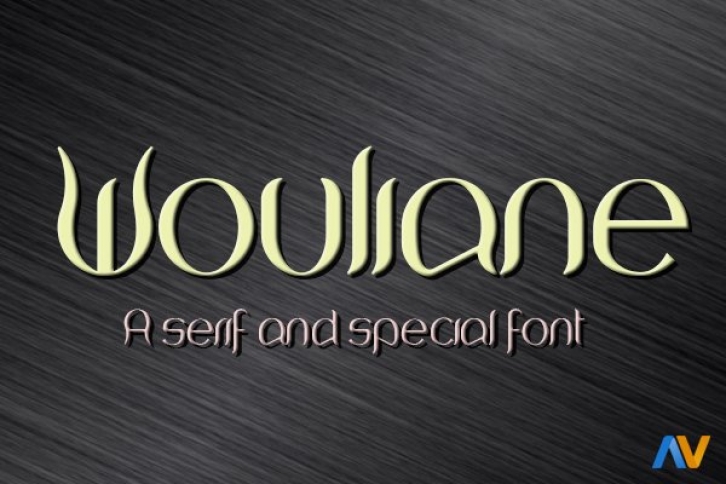
A serif and special font for a elegant purposes. Wouliane is a font created by Alberto Villanueva 2016. Added web fonts and vectors. For commercial usage of this font the purchase of this license is required.